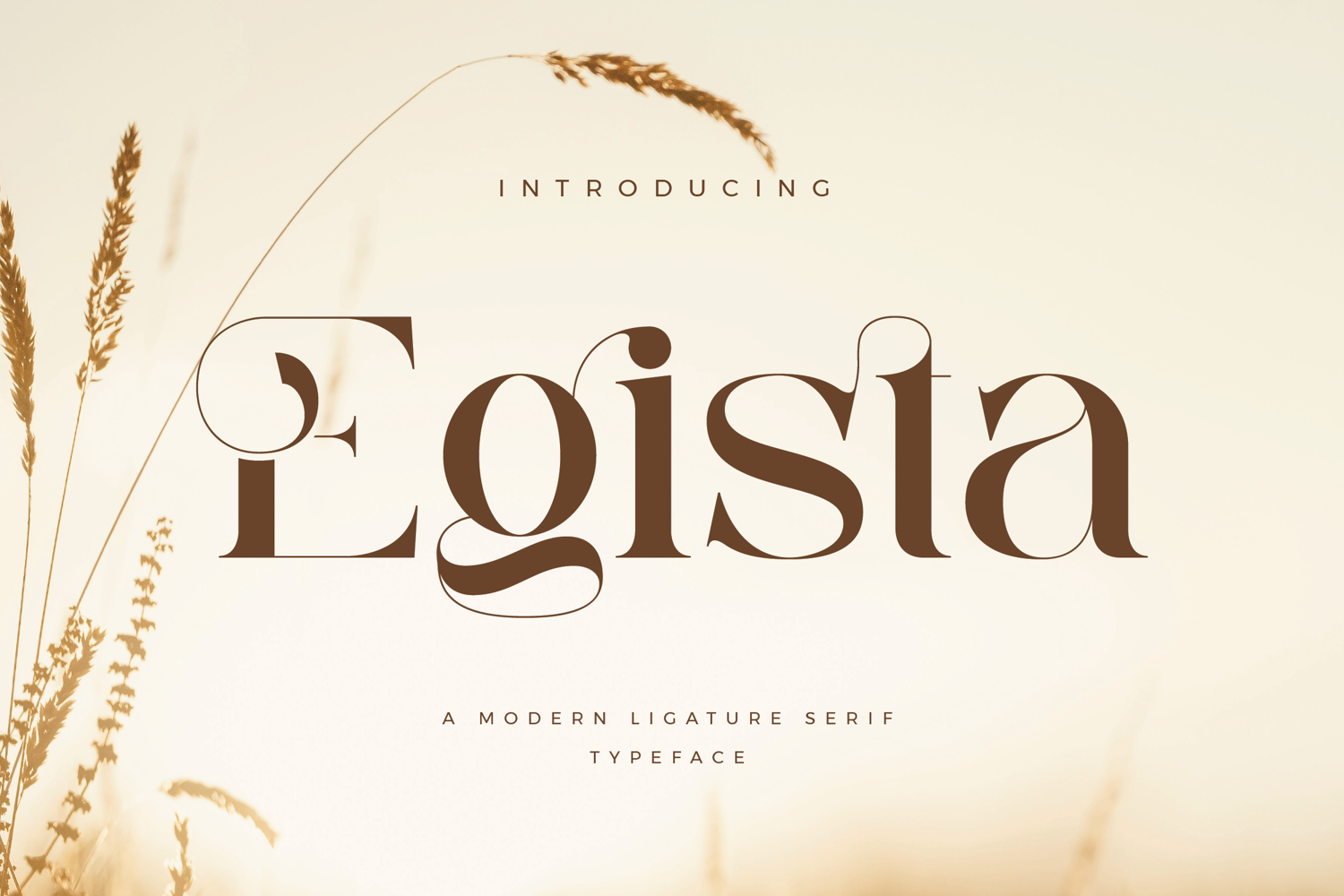
Egista
Egista Stylish Ligature Typeface, inspired by the famous minimalist logo perfect for the purposes of designing templates, brochures, videos, advertising branding, logos and more.